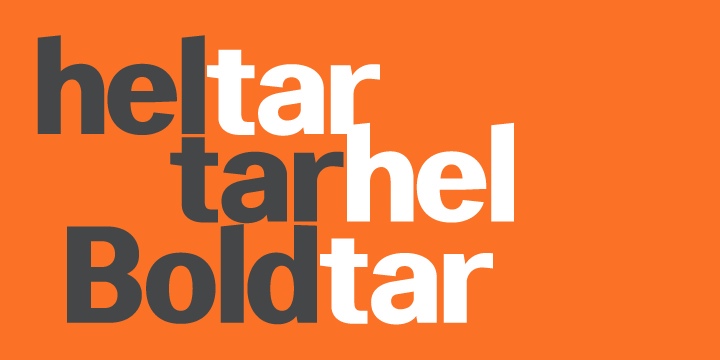
Heltar Font
Heltar Font is perfect for military equipment branding, tactical gear packaging, defense contractor materials, security service communications, protective equipment labeling, combat sports marketing, survival gear catalogs, and law enforcement training materials where strength and protective reliability are emphasized.
What makes Heltar Font so exciting is its armored ability to convey tactical strength and protective reliability through fortified letterforms that embody the durability and defensive capability of military-grade equipment while maintaining excellent readability for critical communications. The reinforced character design reflects the unwavering protection and battlefield-tested reliability that defines professional tactical gear.
The Heltar Font family includes light, regular, medium, bold, and black weights, with tactical variants and military-inspired ornamental elements that provide comprehensive tools for creating authentic defense industry branding and protective equipment design systems.
The font's reinforced character construction and defensive proportions create immediate associations with military protection and tactical equipment reliability. Each letterform has been designed to convey the strength and dependability that professionals expect from quality defensive gear and security services.
Heltar Font excels in creating trustworthy communications that inspire confidence in protective capabilities and tactical expertise. The typeface's military character makes it ideal for defense contractors, security companies, and tactical equipment manufacturers targeting professional users requiring reliable protection.
From body armor producers to tactical training facilities, this font brings military credibility that resonates with professionals who depend on quality protective equipment and tactical gear for their safety. The versatile design maintains its tactical character across both traditional military applications and modern digital security platforms.